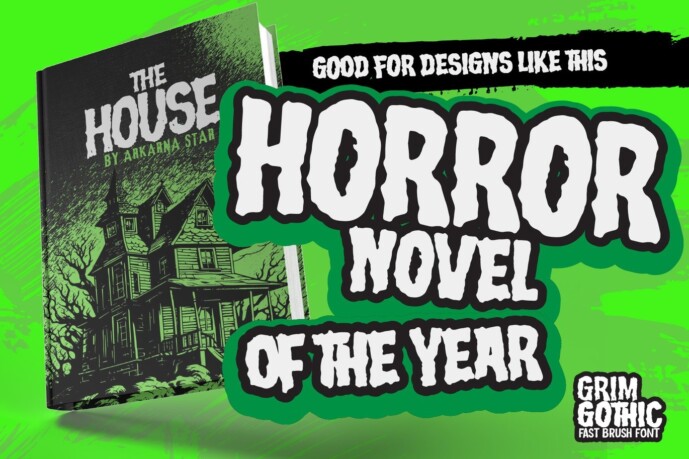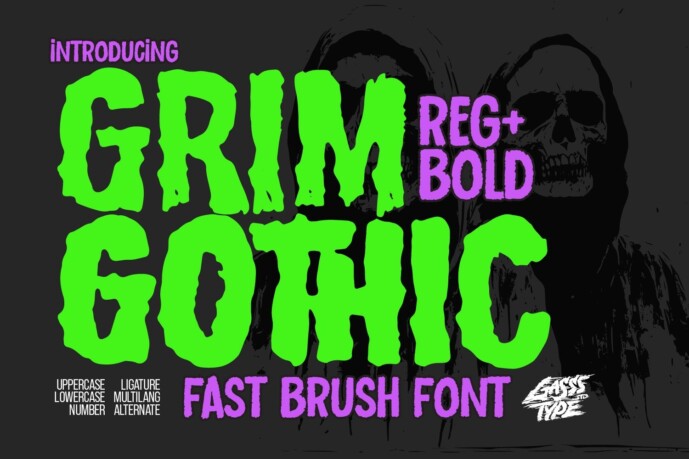
Grim Gothic Font
Designer: Gassstype
Grim Gothic Font – Retro Horror Font for Eerie Designs. Perfect for creating spooky posters, eerie movie titles, and vintage horror-themed graphics, Grim Gothic delivers a distinctive retro horror aesthetic with its crisp, dramatic lines and old-school style. This font captures the essence of classic horror with a modern twist, making it ideal for projects that aim to evoke a sense of nostalgia and fright.